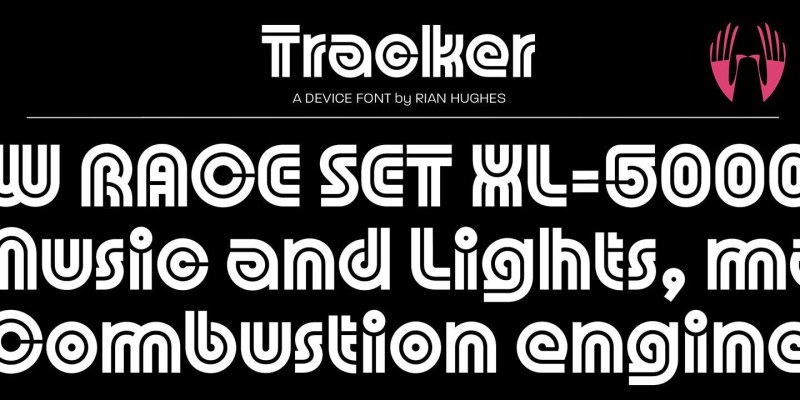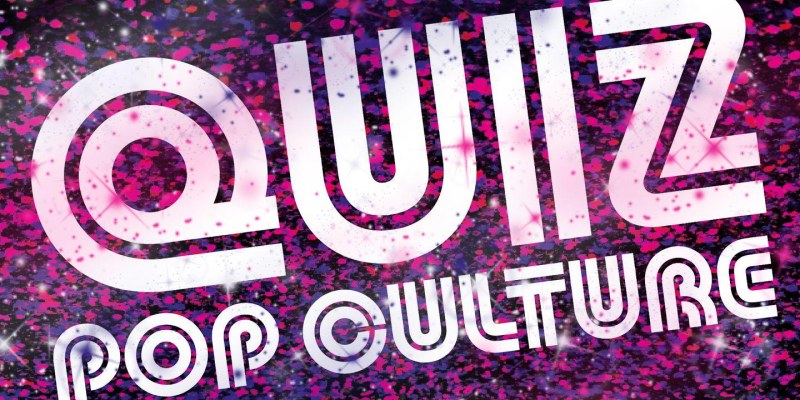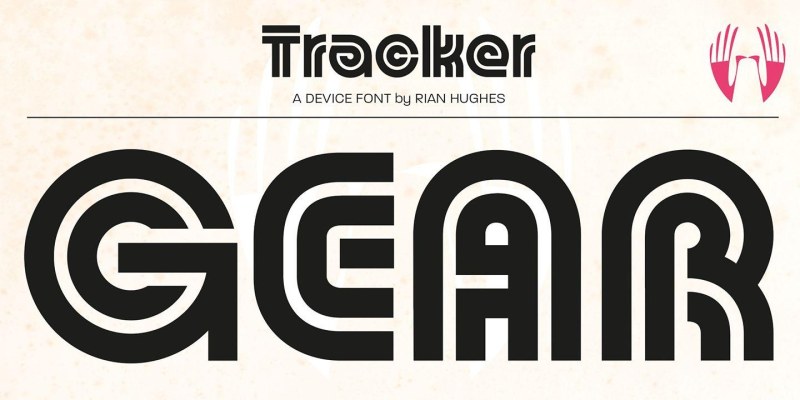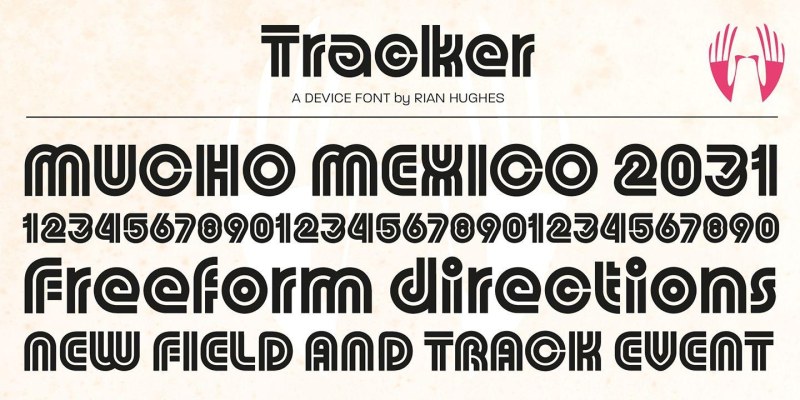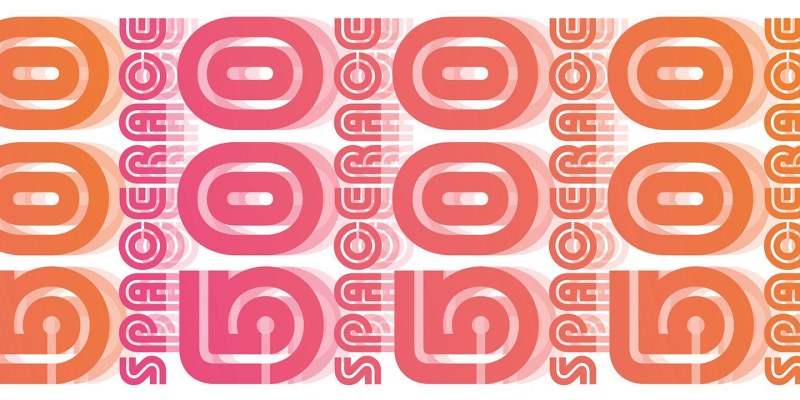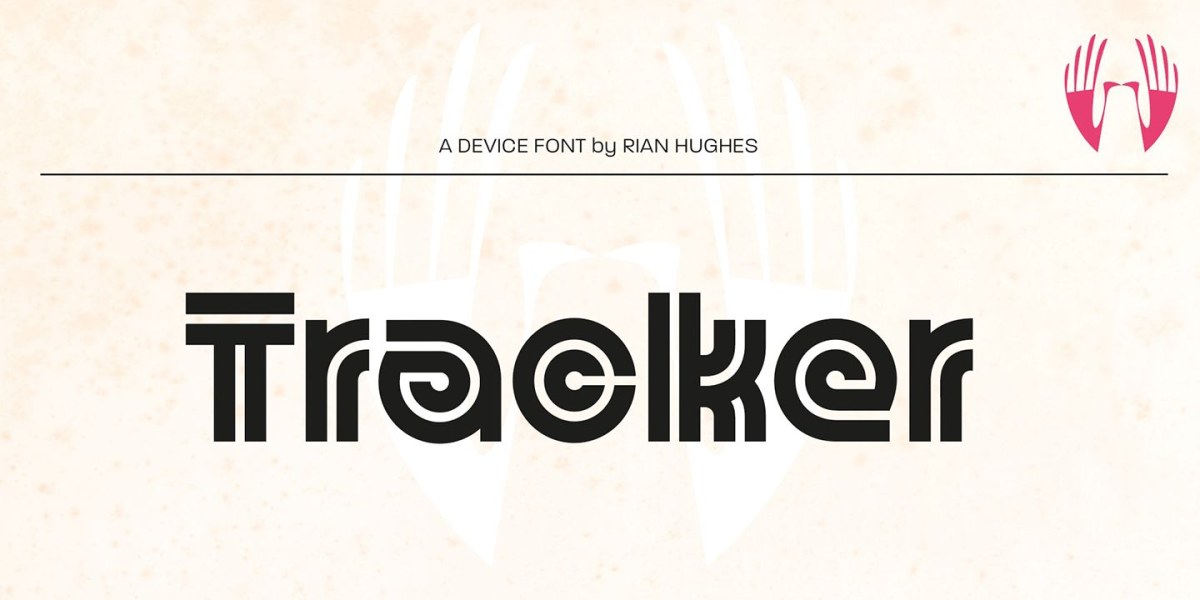
Tracker Font
Tracker is a geometric twin-line font reminiscent of space-age disco designs of the 60s and 70s but entirely reexamined, rationalised, redesigned and updated for contemporary use. It is best seen in shorter, punchier settings and at larger sizes. The font includes connecting ligatures that can be toggled on and off in the Opentype palette to customise your text further.
Where Tracker Font works best
Tracker Font is built for size: event posters, hero headlines and billboard-style layouts.
High contrast display type like Tracker Font reads instantly in thumbnails and motion graphics.
What is Tracker Font good for?